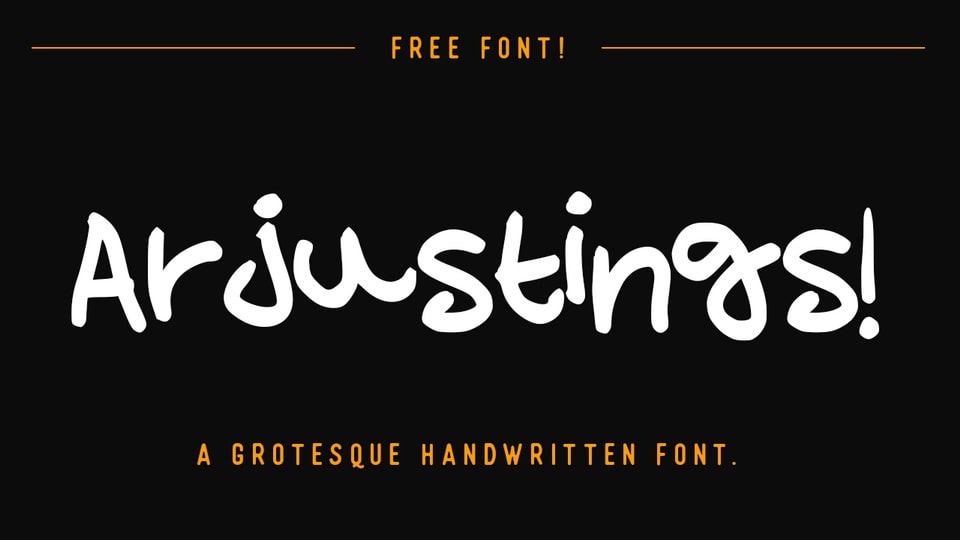
Download Arjustings font, the ugliest handwritten typeface made to grab everyone’s attention! Use Arjustings font to make weird and funky designs, logos, t-shirt prints or anything you can think of!
Designer: Arjun Haridas